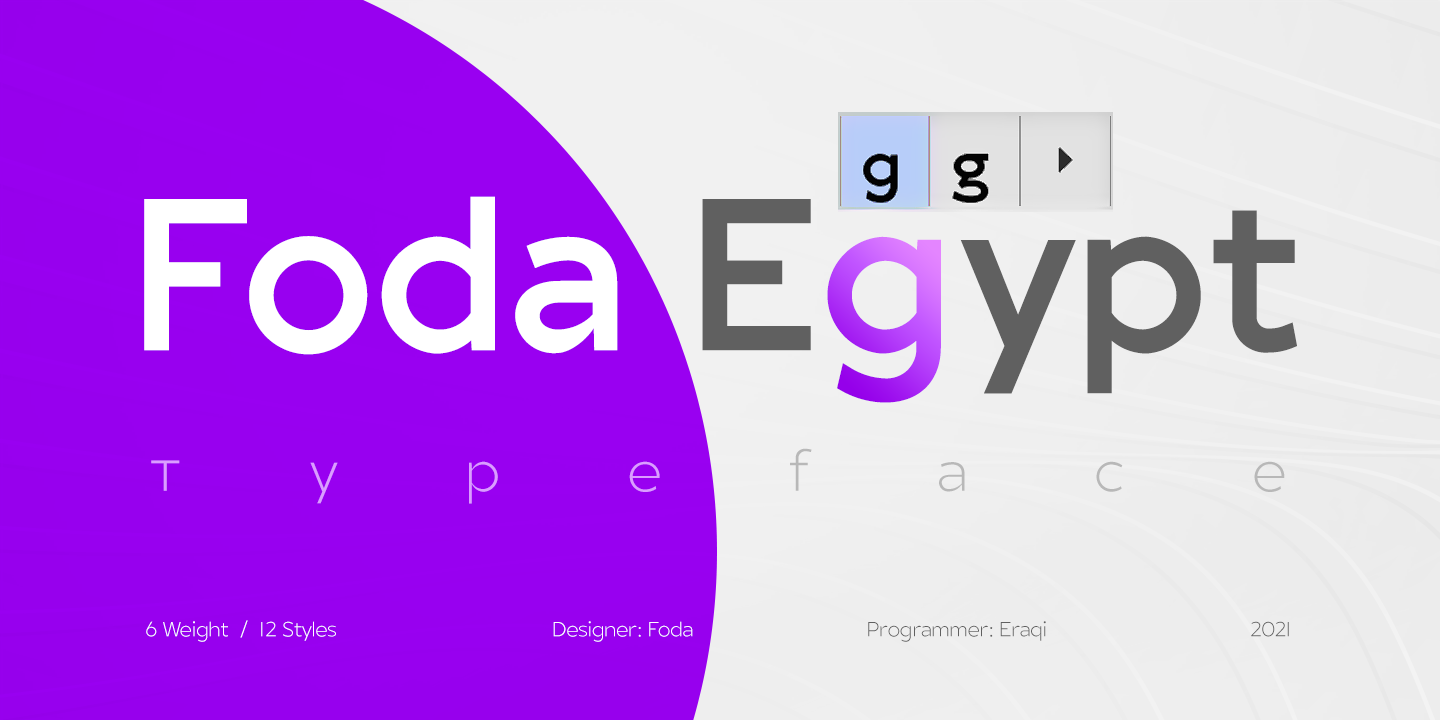
Foda Egypt Font is perfect for Egyptian cultural centers, Middle Eastern restaurant branding, archaeological museum exhibitions, ancient civilization documentaries, hieroglyphic art projects, desert tourism marketing, historical education materials, Egyptian mythology books, papyrus design workshops, Nile River cruise promotions, pyramid tour advertising, and authentic Egyptian cuisine establishments.
This font is exciting because it channels the timeless majesty and mysterious power of ancient Egyptian civilization, featuring bold letterforms that echo the same monumental grandeur and sacred wisdom found carved into the eternal stones of pyramids, temples, and pharaonic monuments that have stood as testaments to human achievement for thousands of years. The strong character design captures both the architectural precision of Egyptian engineering and the spiritual depth of hieroglyphic communication, creating typography that feels authentically connected to the land of the pharaohs while maintaining perfect readability for modern applications. Each letter radiates the kind of enduring strength and cultural significance that transforms ordinary text into declarations worthy of ancient kings and eternal monuments.
The Foda Egypt Font family includes regular and bold weights with complete character sets featuring Egyptian-inspired numerals, traditional punctuation marks, and decorative elements reminiscent of hieroglyphic symbols, papyrus textures, and ancient Egyptian artistic motifs. Advanced versions may offer additional stylistic variants with enhanced stone-carved effects, alternate characters that mimic ancient Egyptian inscriptions, and ornamental elements that celebrate the rich cultural heritage of the Nile Valley civilization.
Whether you're developing Egyptian cultural branding, creating historical educational content, or designing tourism materials for the land of the pharaohs, Foda Egypt Font Free Download provides the ancient wisdom and monumental strength your project needs to honor Egyptian heritage while capturing the timeless fascination that draws millions to explore the mysteries of this incredible civilization. This typeface transforms ordinary text into powerful declarations that carry the weight of five millennia of human achievement and cultural legacy. The font's historical character makes it ideal for projects celebrating Egyptian culture and ancient wisdom. Egyptology enthusiasts and cultural heritage designers will appreciate how this font brings authentic pharaonic power to their work with its genuinely monumental and culturally respectful character that honors the eternal legacy of ancient Egypt.